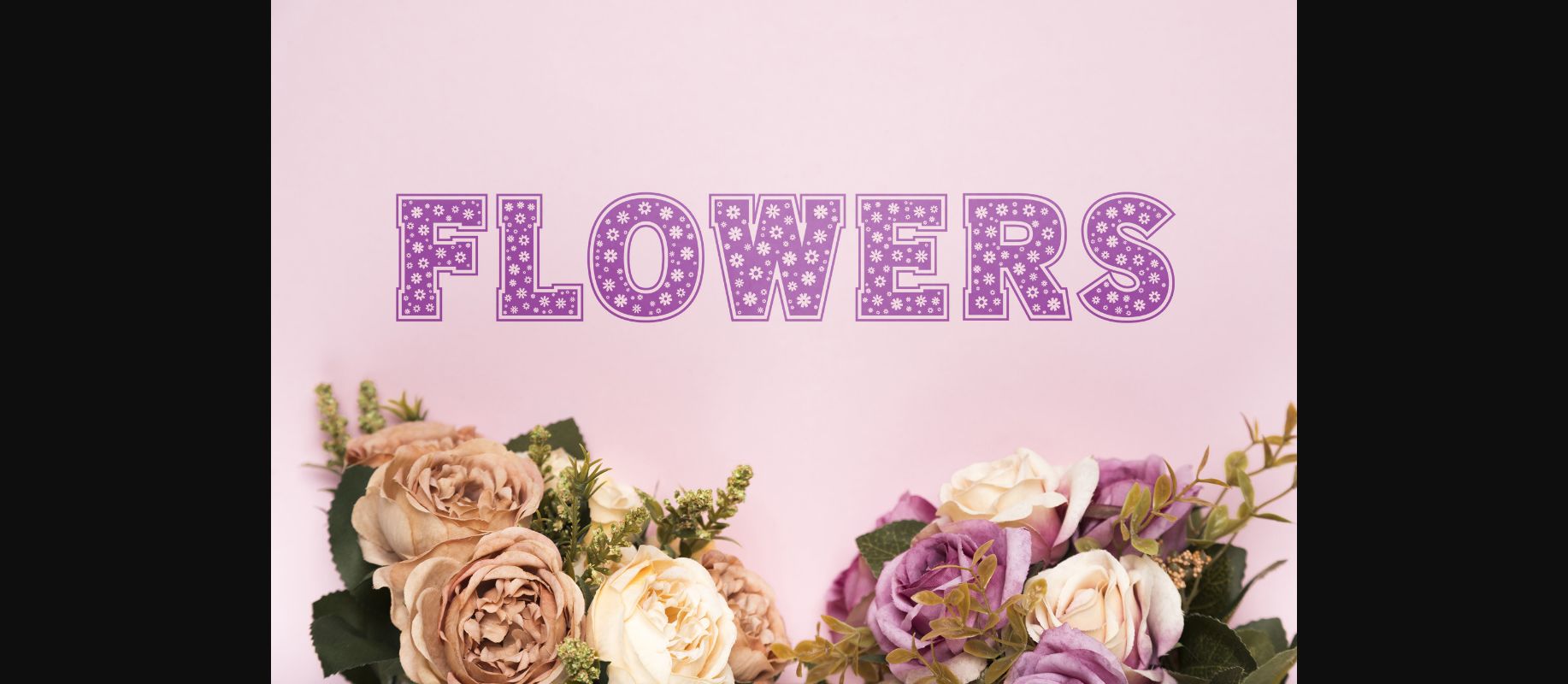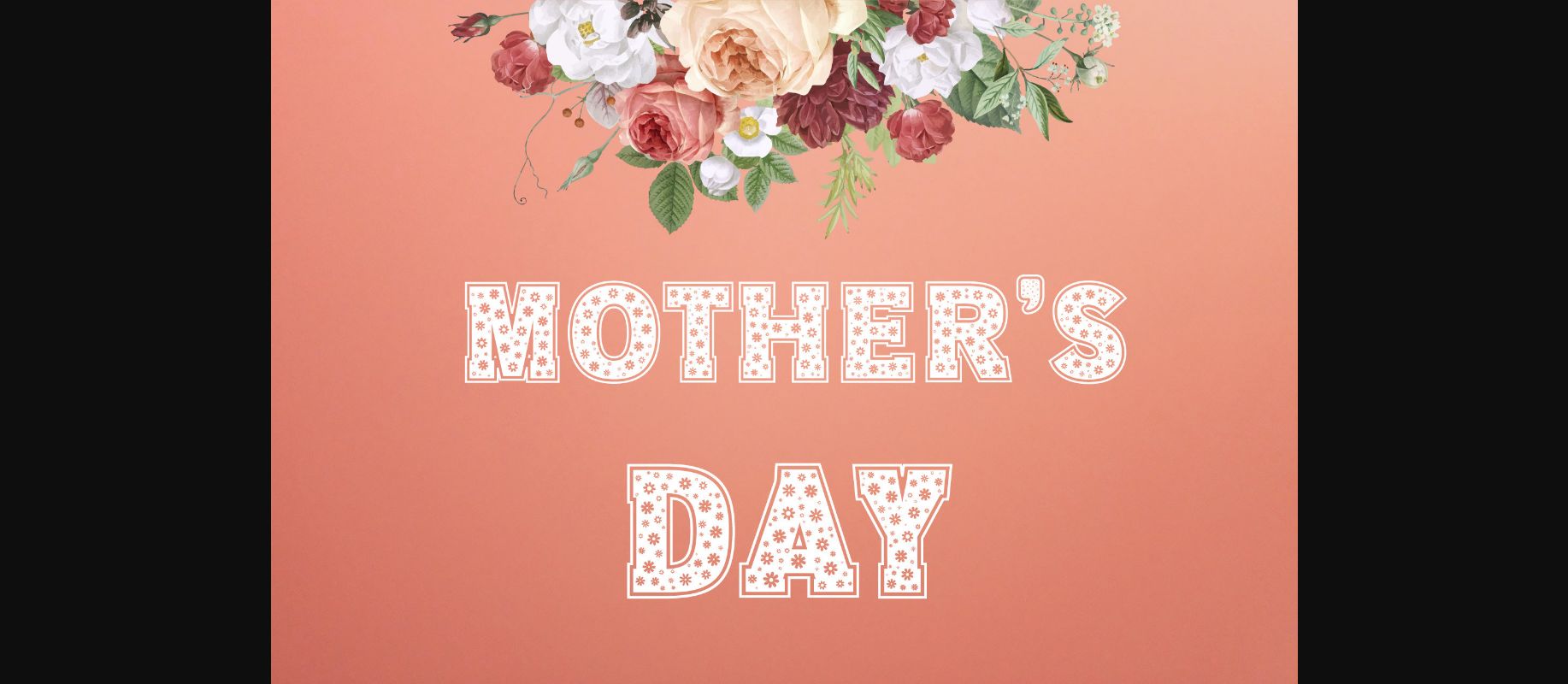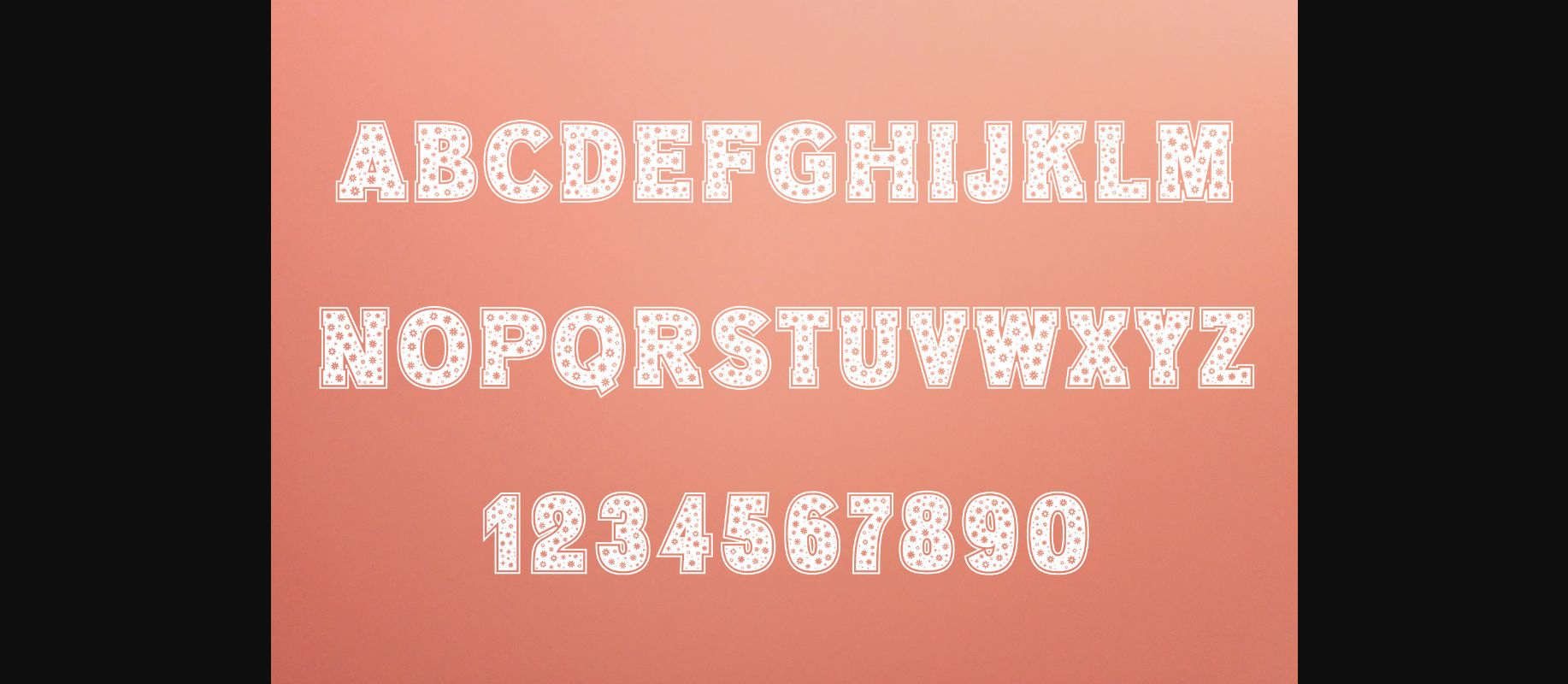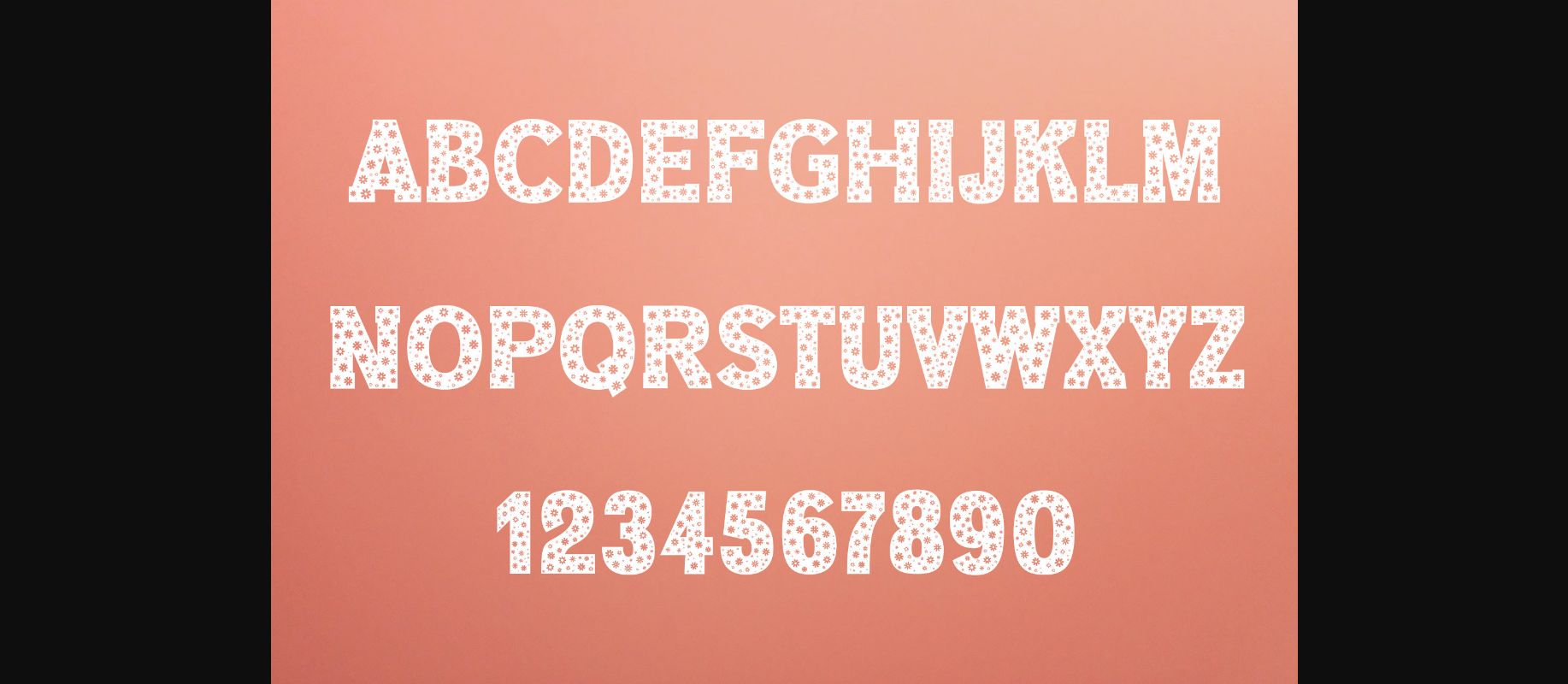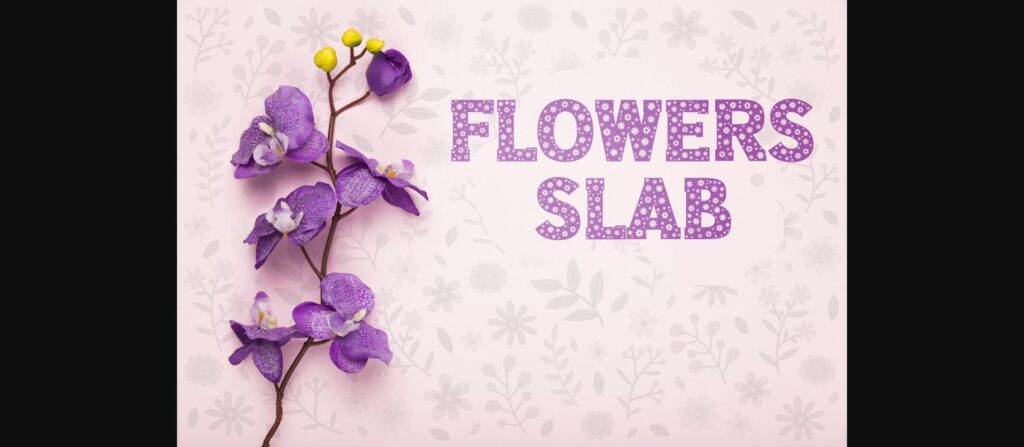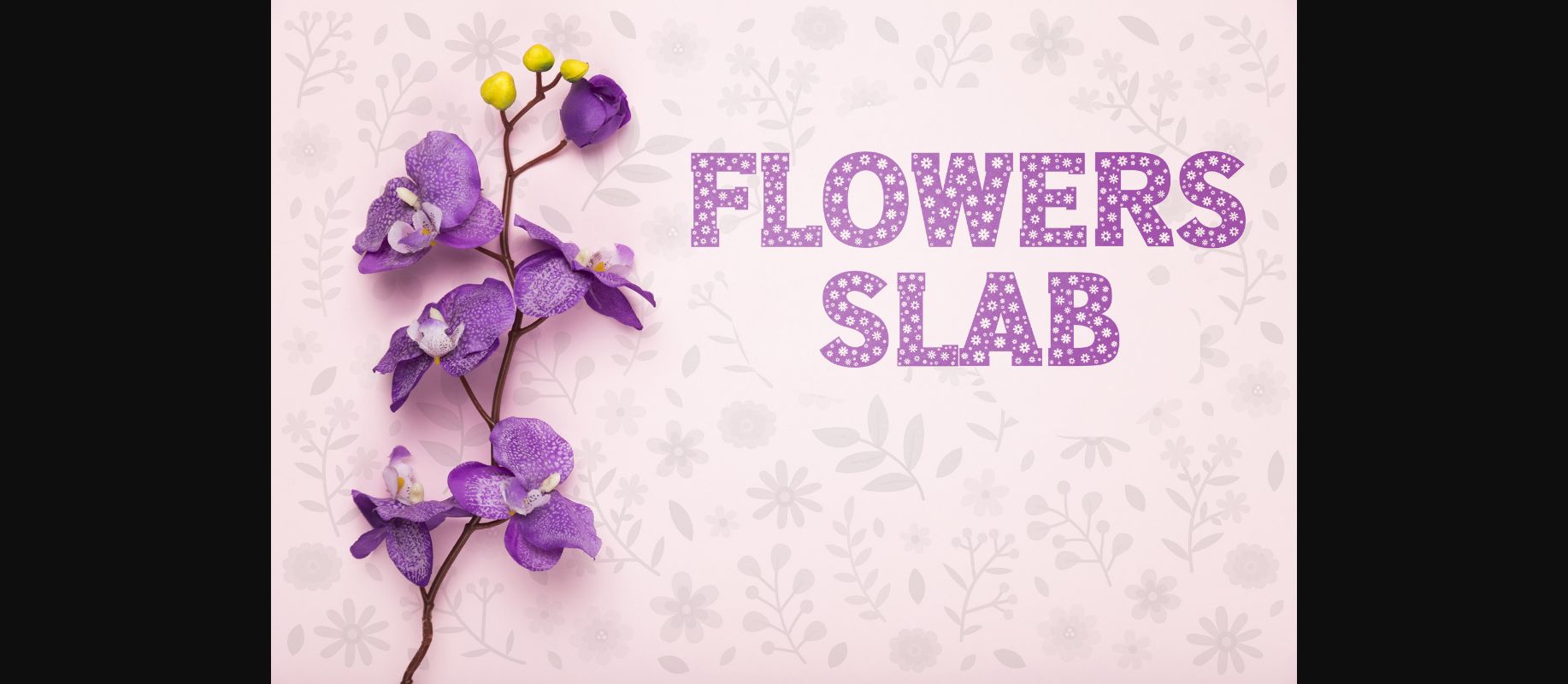
Flowers Font
About Flowers Font
Flowers is a superb decorative font with a floral theme. Use this font for any crafting project that requires a personalized look!